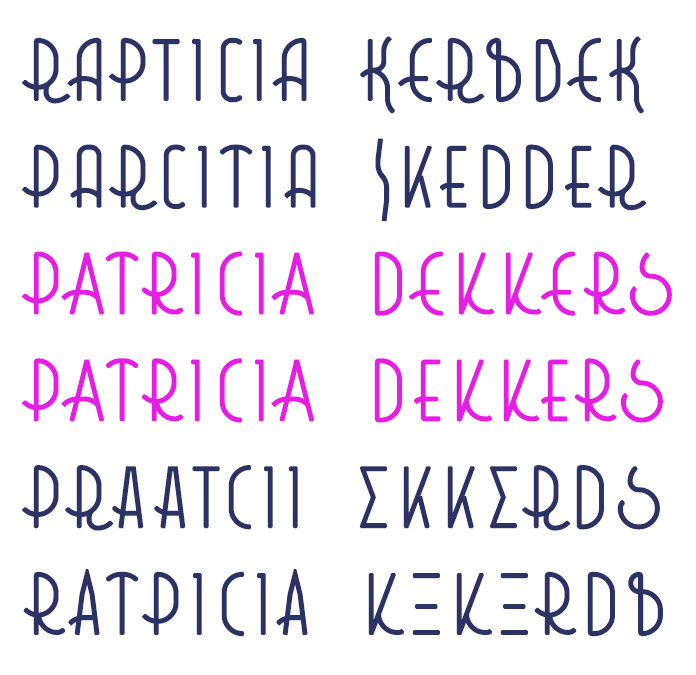
STF_THUNDERDOME - A tall thin stroked Art Deco typeface.
I tried to create pretty simple, elegant but somewhat wonky geometric letterforms.
Inspired by the later 70's Art Deco Streamline period.
This remains a WIP, many of the glyphs in the Extended-Latin set aren't reflecting their Basic-Latin counter-parts. The character set remains far from complete for now, and many changes need to be made still.
Kerning done only for a few pairs and overall balance therefor is still quite poor I guess.
Some 'more' detailed but derailed towards the end 'in-depth' recap of this font could be found bellow in the comment section.
Of course I understand that this isnt the most legible lettering for large chunks of Body-Text like how I did it in the sample image. It was solely done for demonstrating the font with random text.
[First sample image: ]
"Font name" full uppercase,
"Hamburgefontstiv" default mix-case,
"Pangrams" full uppercase
[Second sample image: ]
Was mostly typed in lowercase with some exceptions such as yellow top text which is stylistic custom combination of default glyphs and alternates. And a tiny bit of random glyph shuffle throughout the main body of text as well.
Love the sublte curvatures and deco elements
@elmoyenique: lolol, It was sort of a joke, trying to troll my wife a bit, rearranging the letters for her name into stuff that kinda sounds funny shitty, (oopz) ehehe
An excellent addition to fontstruct's Art Deco genre!
Very good font, work great in a long text as well, bravo!